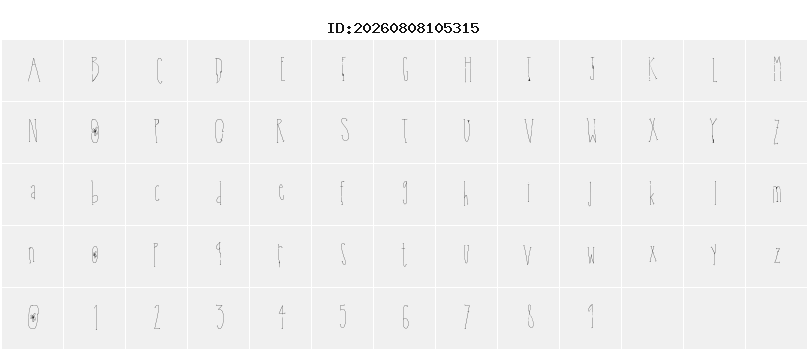
PoseyBlossom Preview
• Font Name: PoseyBlossom
• Full Font Name: PoseyBlossom
About PoseyBlossom.ttf
PoseyBlossom.ttf is a modern, elegant sans-serif font designed for ultimate readability and visual harmony. Perfect for branding, headlines, web design, and print materials.